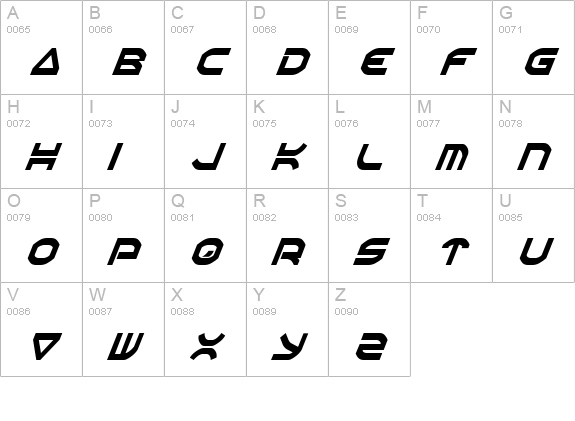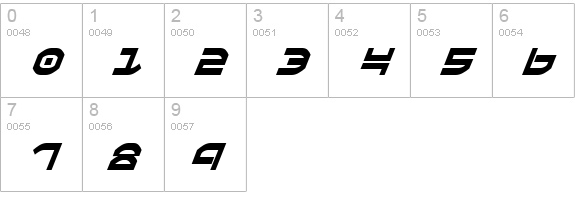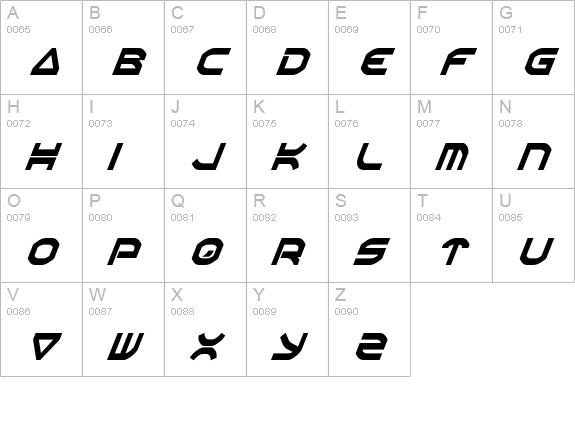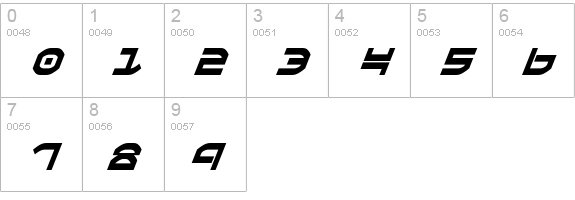
Oberon Condensed Italic is a distinctive, condensed-width, italic variant in the Oberon typeface family \xE2\x80\x94 well suited to design and typography projects.
Oberon Condensed Italic font is a sophisticated and elegant typeface that exudes a sense of modernity and style. With its sleek and slanted design, this font is perfect for adding a touch of sophistication to any project. The italicized characters add a sense of movement and flair, making it ideal for use in headings, quotes, and other design elements. What makes Oberon Condensed Italic font even more appealing is that it is available for free download at FontsMarket.com. This means that you can easily access and use this stunning font in your design projects without any cost. Whether you're working on branding materials, web design, or print media, Oberon Condensed Italic font will enhance your work with its unique and eye-catching appearance. Don't miss out on the opportunity to elevate your designs with Oberon Condensed Italic font - download it for free today at FontsMarket.com and see the difference it can make in your projects!